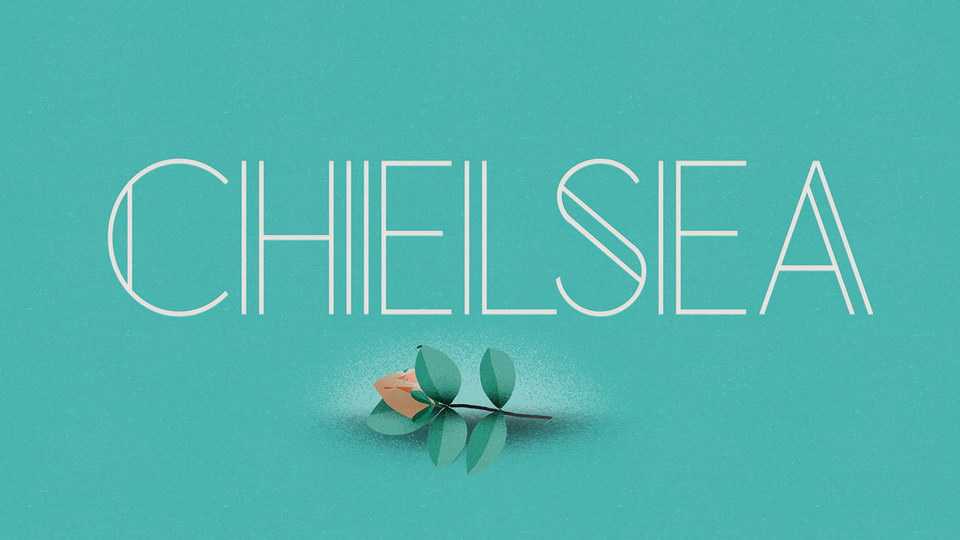
Download Chelsea typeface, a beautiful modern sans serif font family featured in four styles, three of them can be overlayed and the fourth has some subtle curves in the corners.
Designer: Antonio Rodrigues Jr